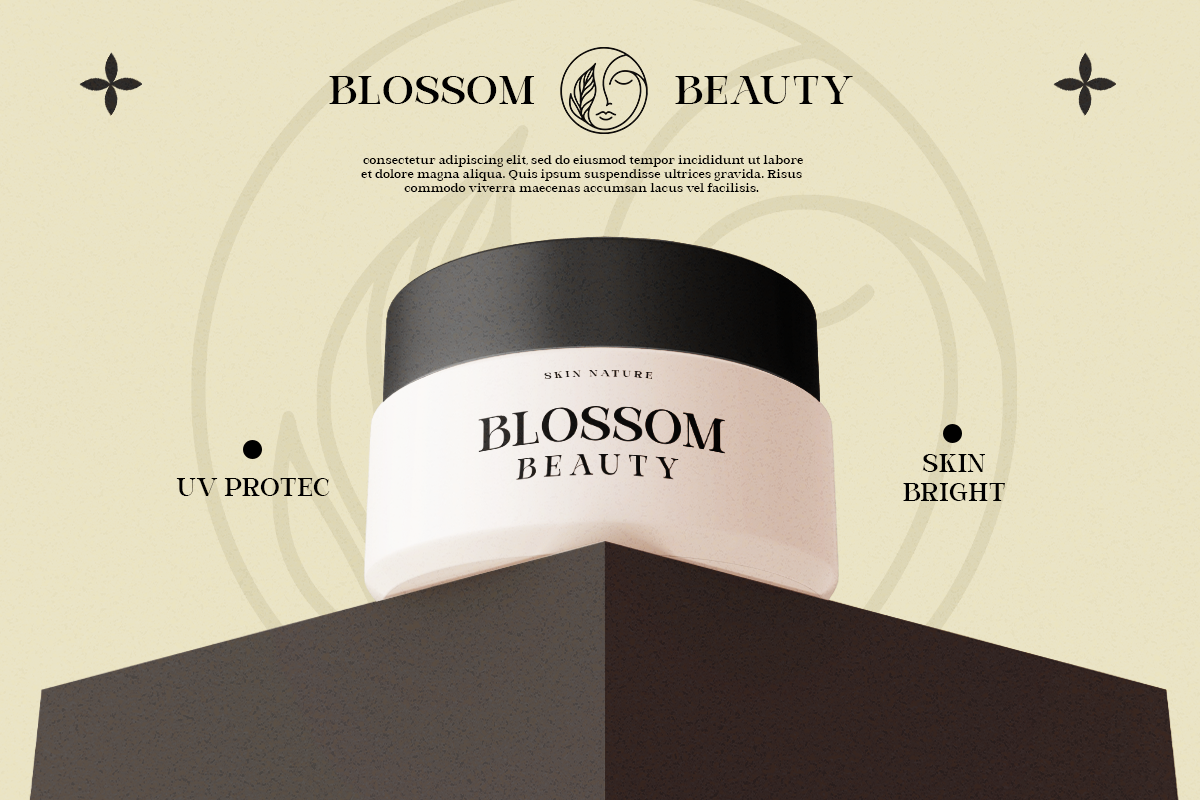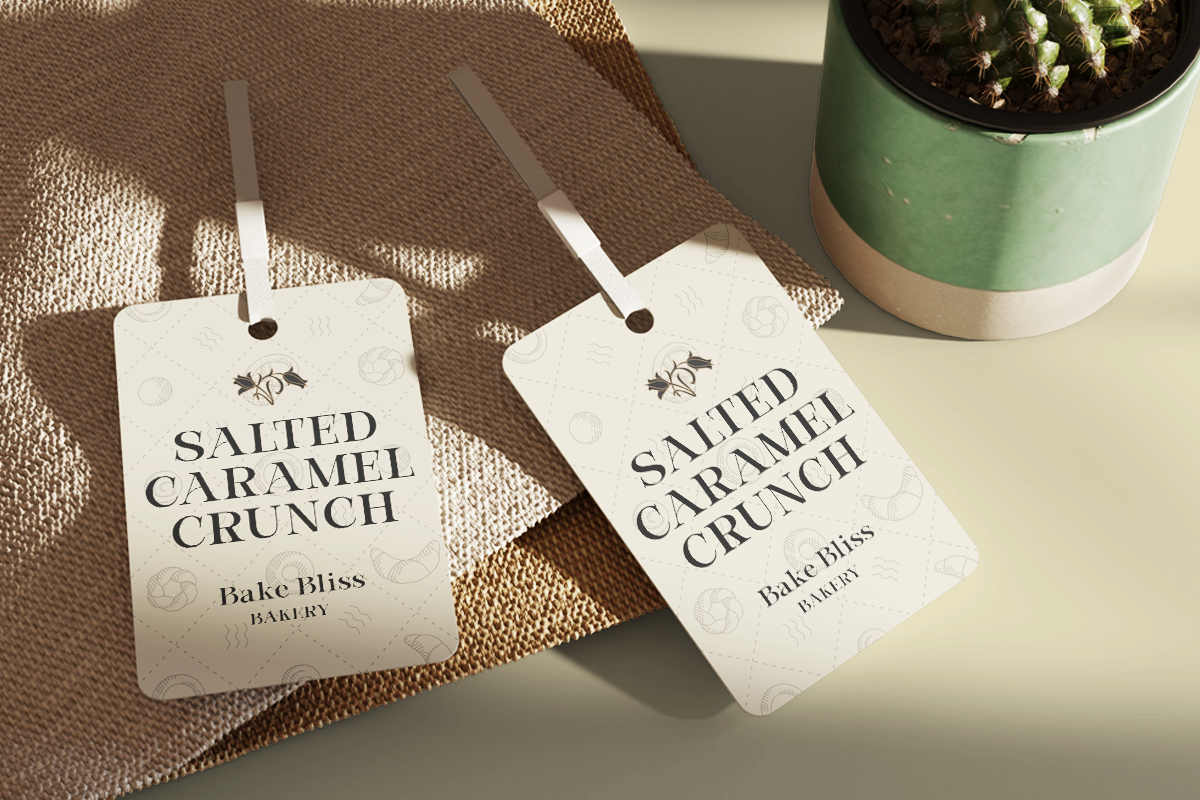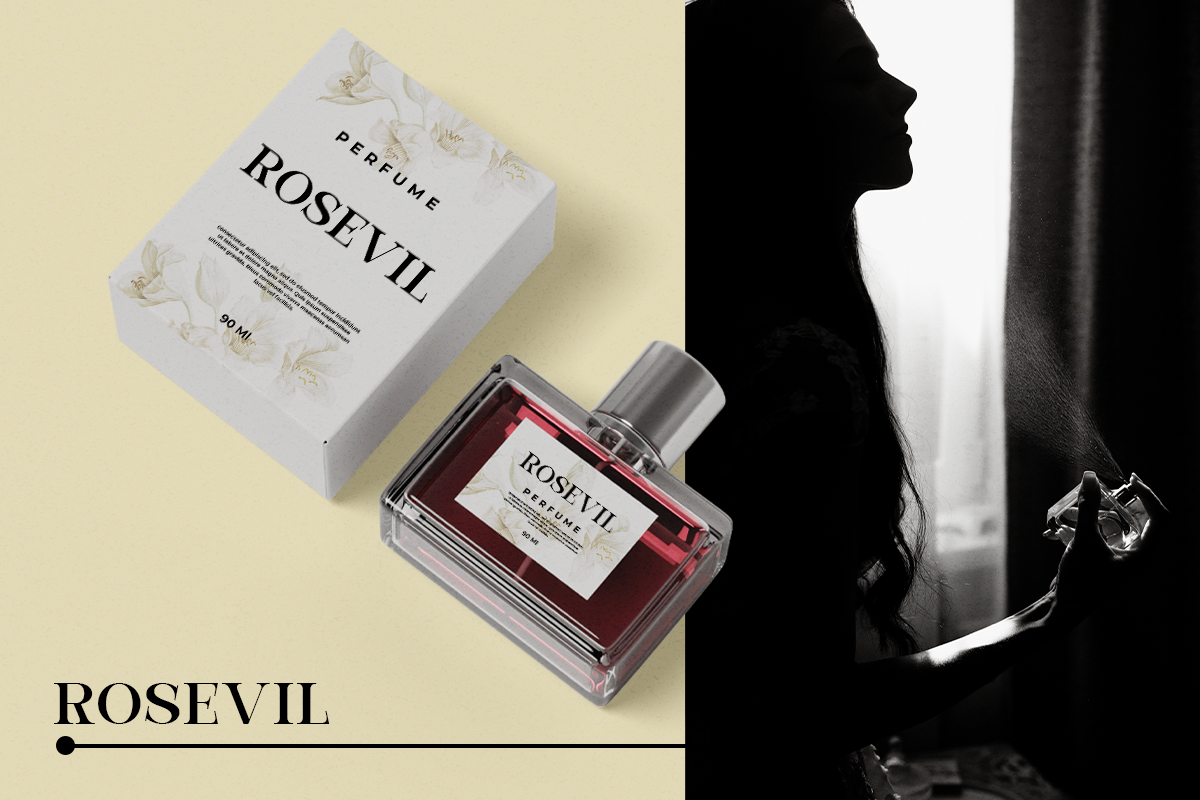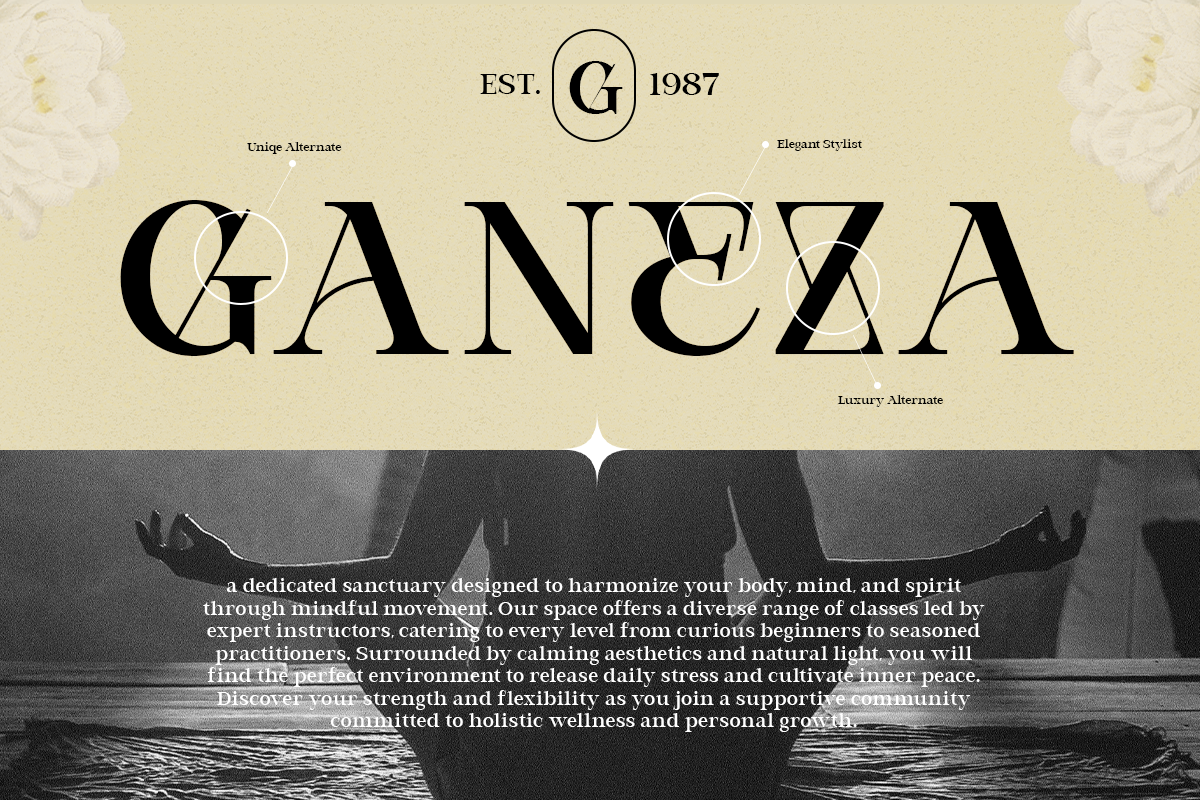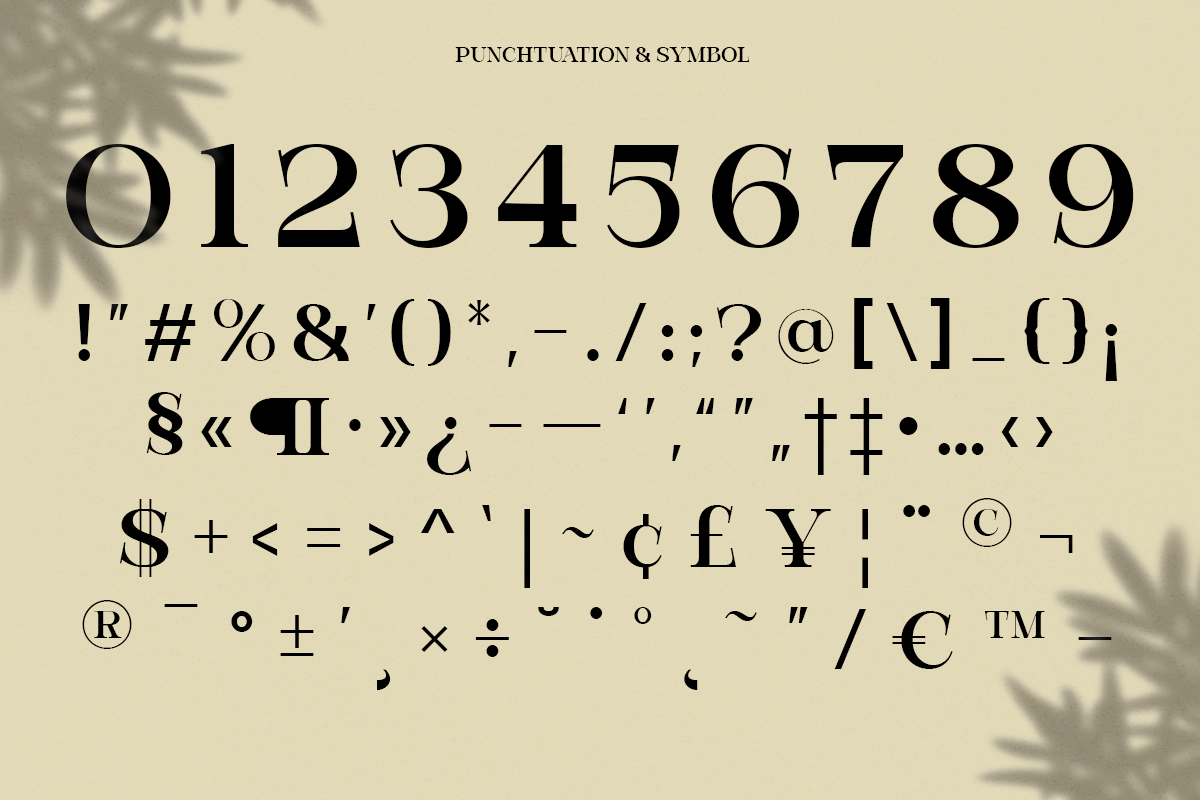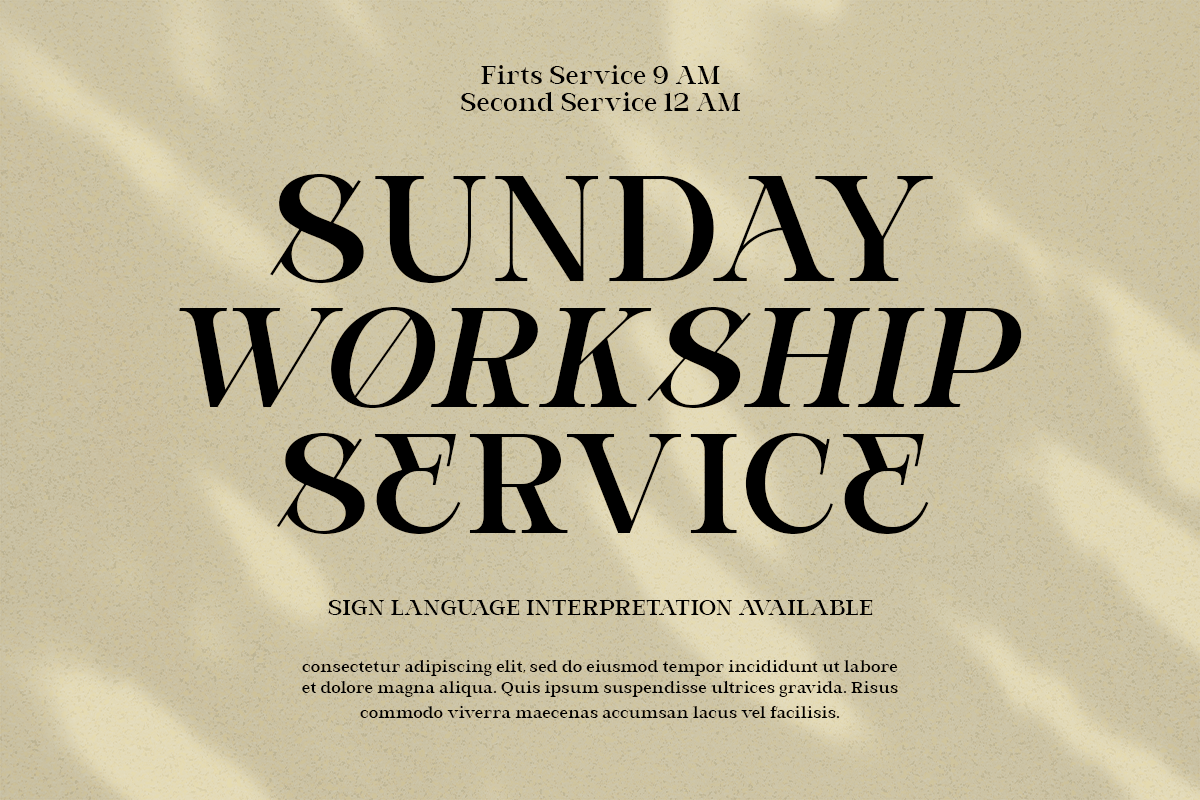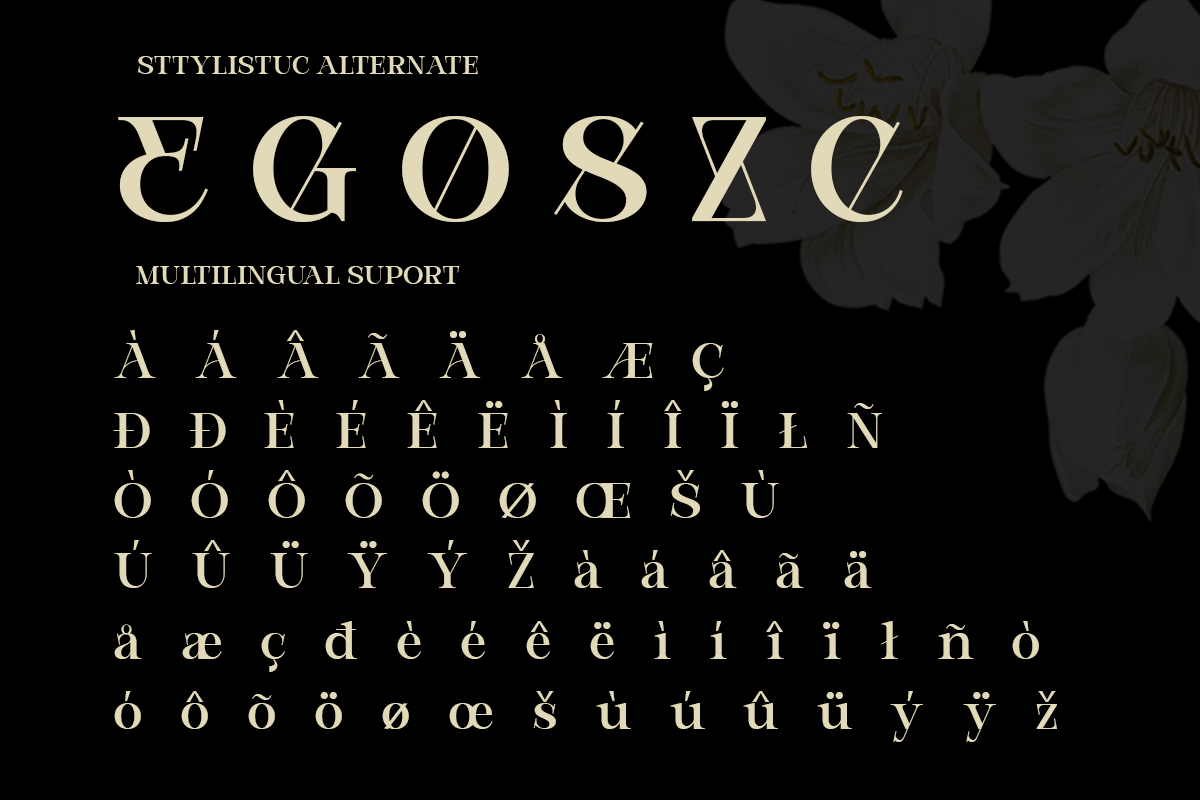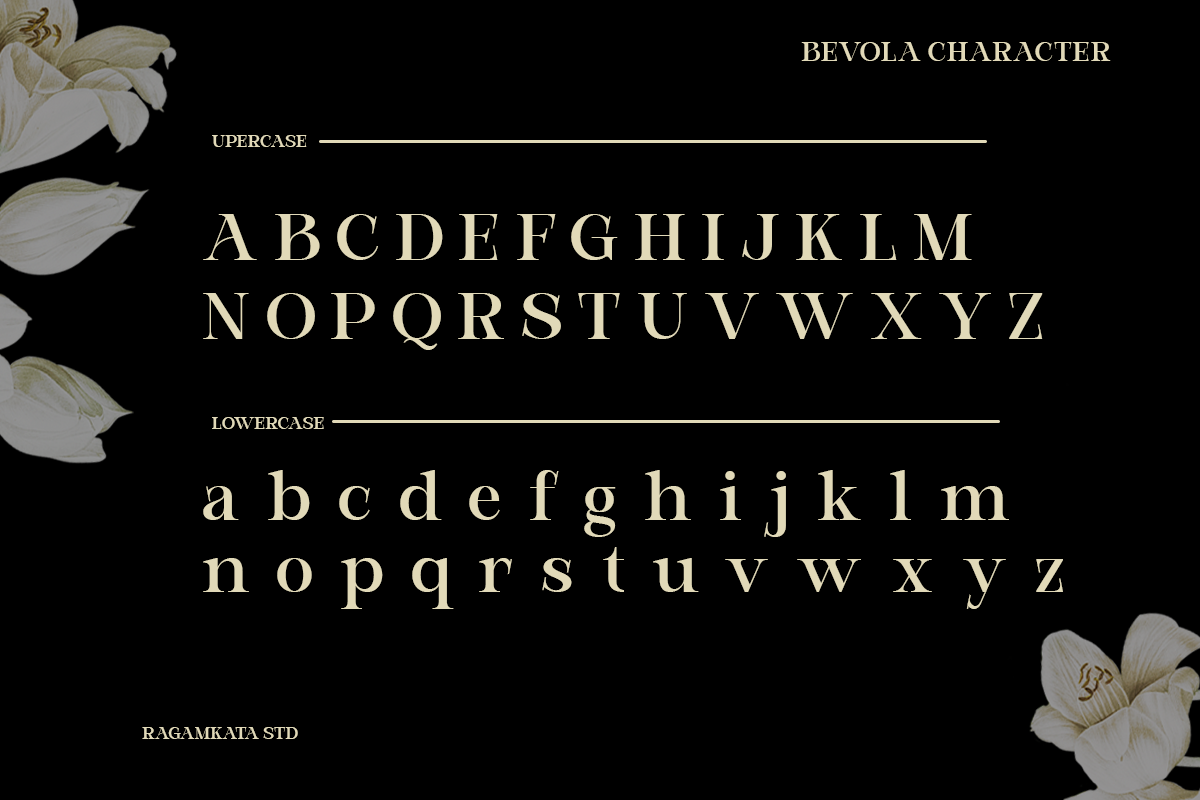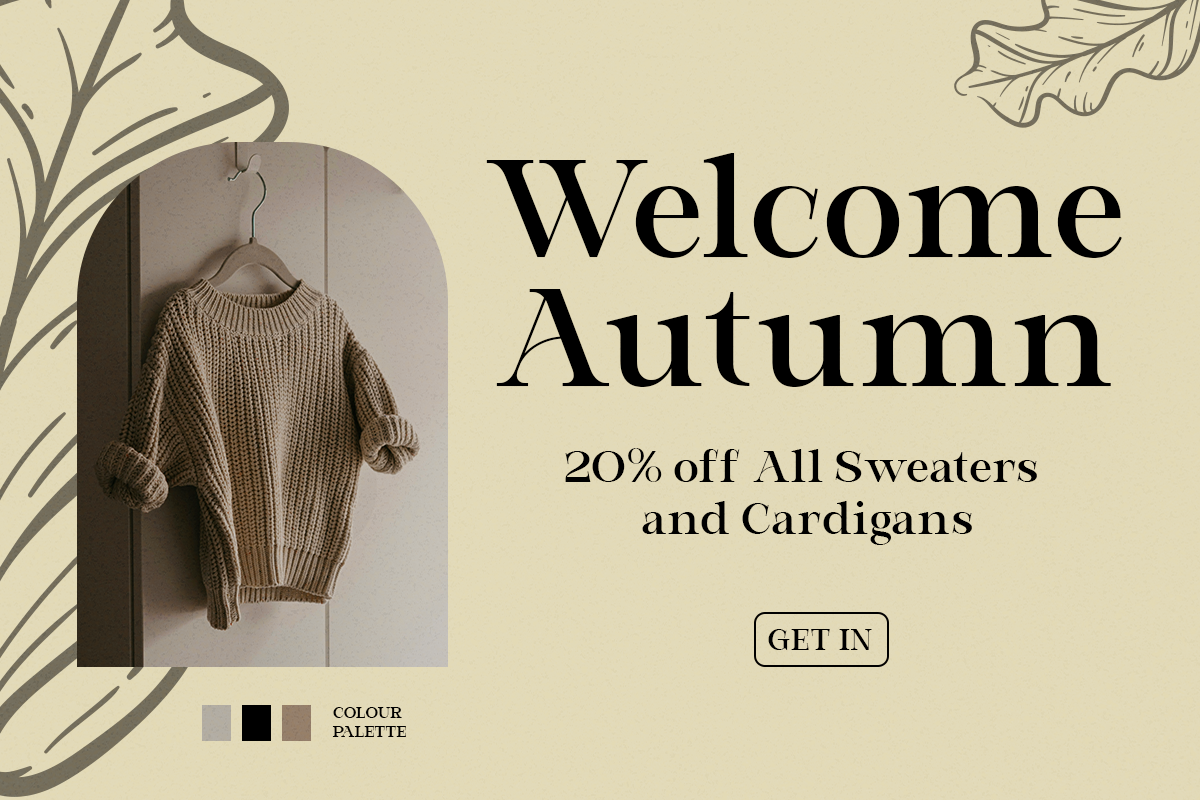
Modern Elegant Serif - Bevola
Bevola is a modern elegant serif font designed to bring timeless beauty and refined sophistication to contemporary design. With its graceful curves, balanced proportions, and stylish contrast, Bevola delivers a luxurious typographic presence that feels both classic and modern. The delicate serif details create a premium aesthetic that works beautifully across both digital and print designs.
Crafted for designers who want their typography to stand out with elegance, Bevola is perfect for branding projects, fashion editorials, luxury packaging, magazine layouts, beauty products, and sophisticated logo design. Its refined character shapes provide excellent readability while maintaining a stylish high-end look that elevates any creative project.
Whether you are building a luxury brand identity, designing a modern editorial layout, or crafting elegant invitations and packaging, Bevola offers versatility and elegance in every letter. This font blends contemporary design with timeless serif sophistication, making it a perfect choice for designers seeking premium typography with a refined visual voice.